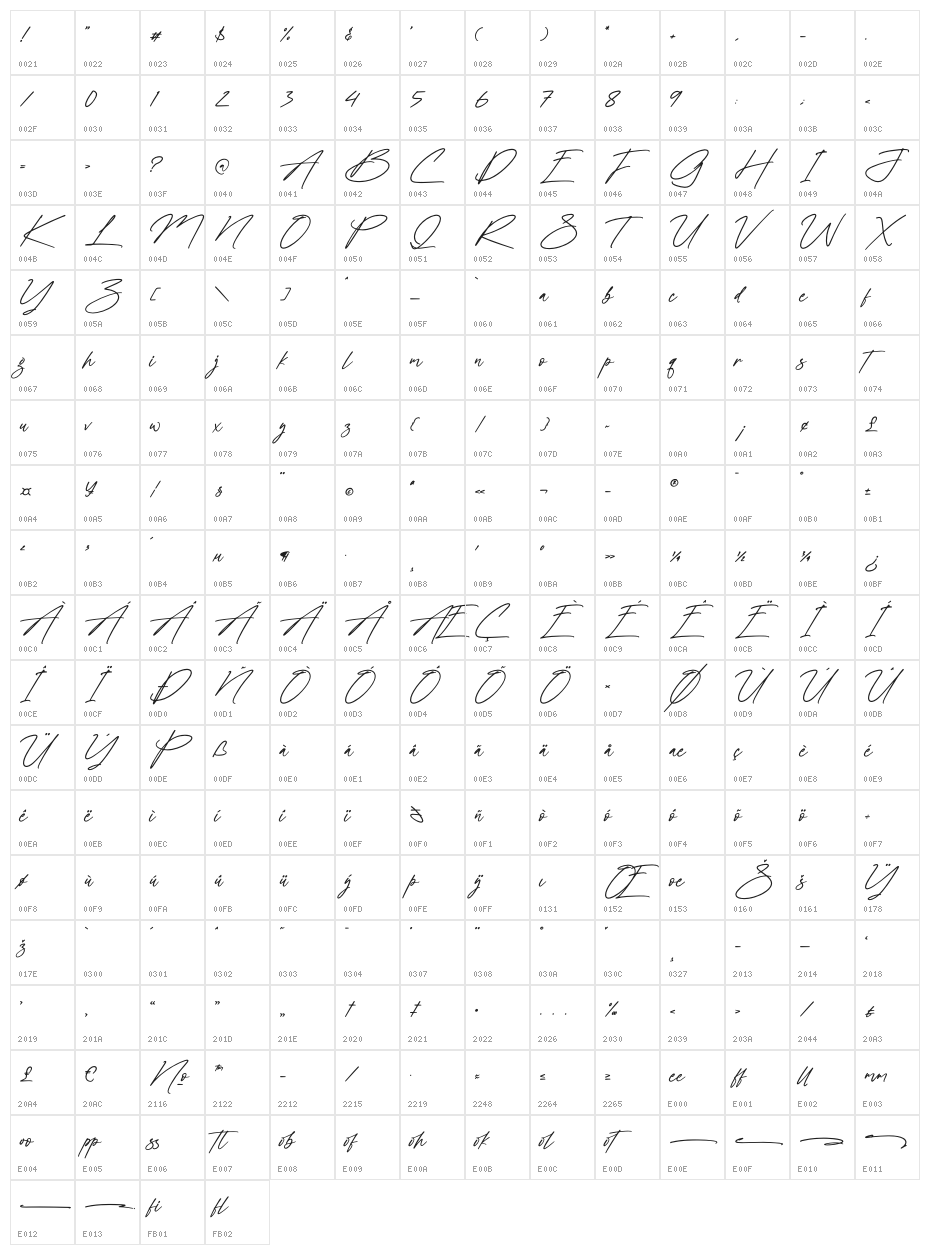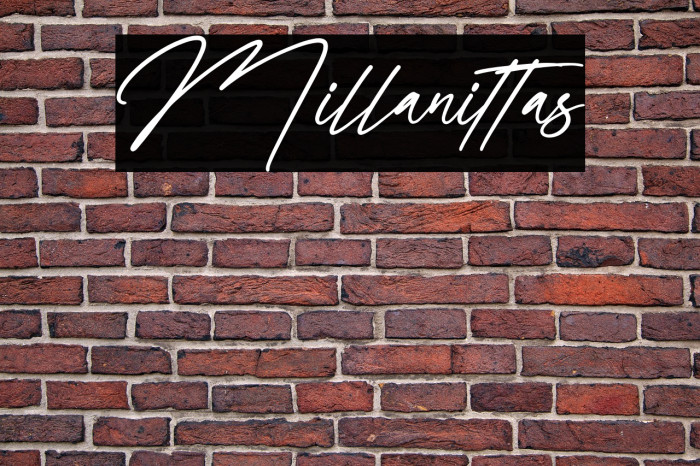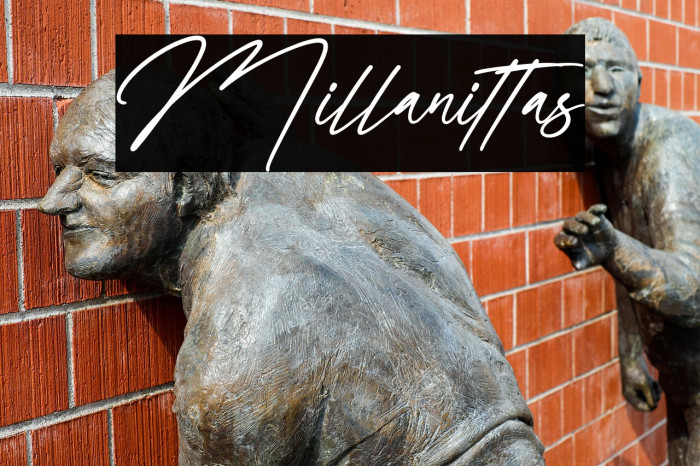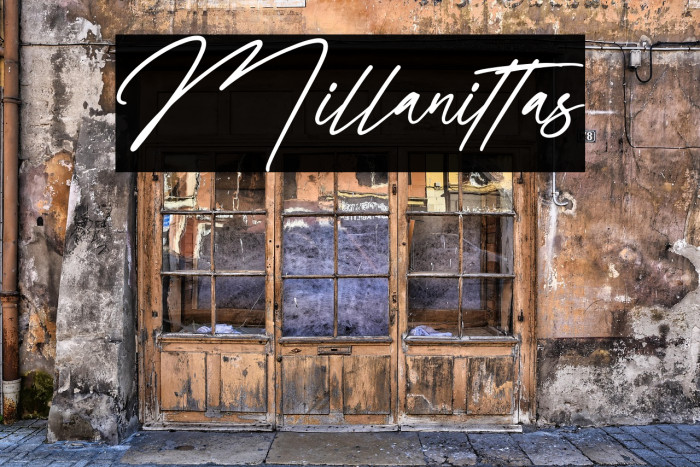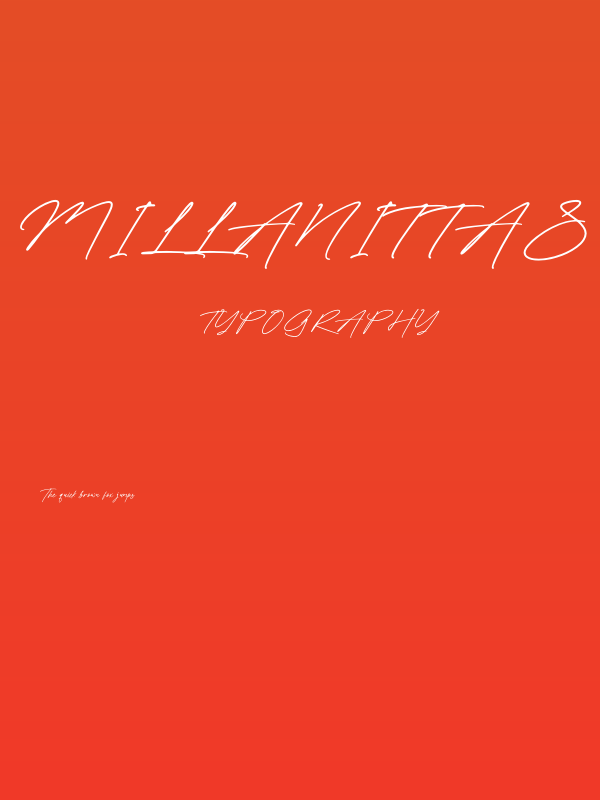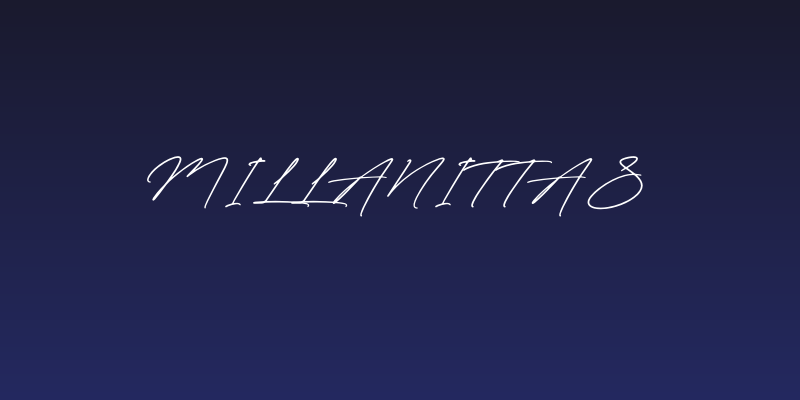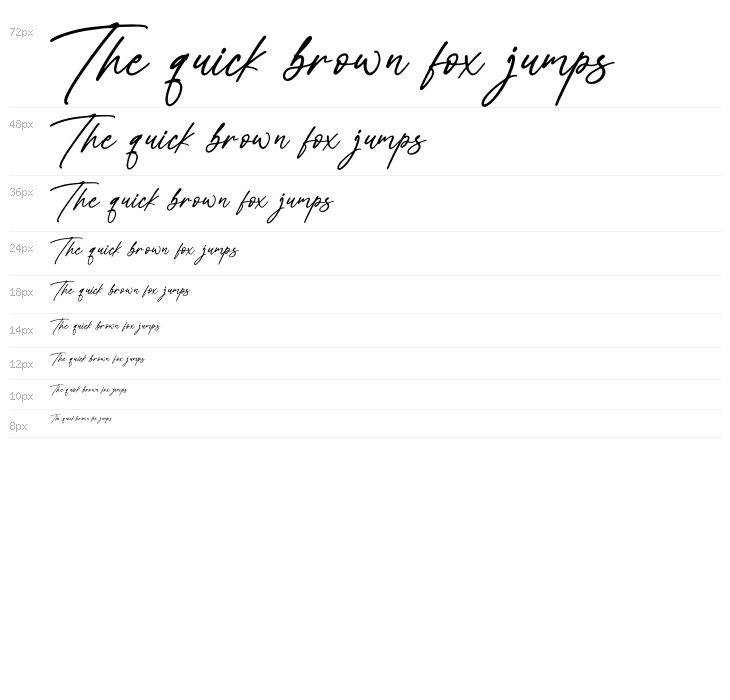
Millanittas Font
Millanittas Description
This elegant script font features a fluid and graceful style, reminiscent of traditional cursive handwriting. The uppercase letters are slightly more elaborate, with sweeping lines and a touch of flair, while the lowercase letters maintain a consistent flow with smooth, connected strokes. The numbers and special characters complement the overall aesthetic, maintaining the same fluidity and elegance. The font's design is both sophisticated and approachable, making it suitable for a variety of applications where a personal touch is desired.
| Overall Style | Elegant, Handwritten |
| Proposed Projects | Ideal for wedding invitations, personal branding, greeting cards, and elegant packaging designs. |